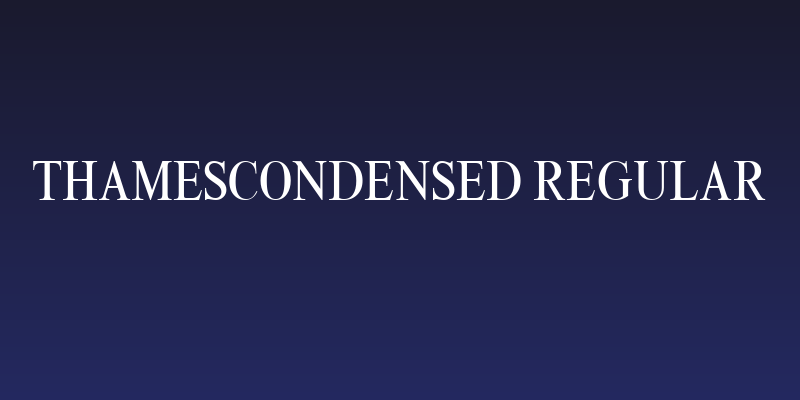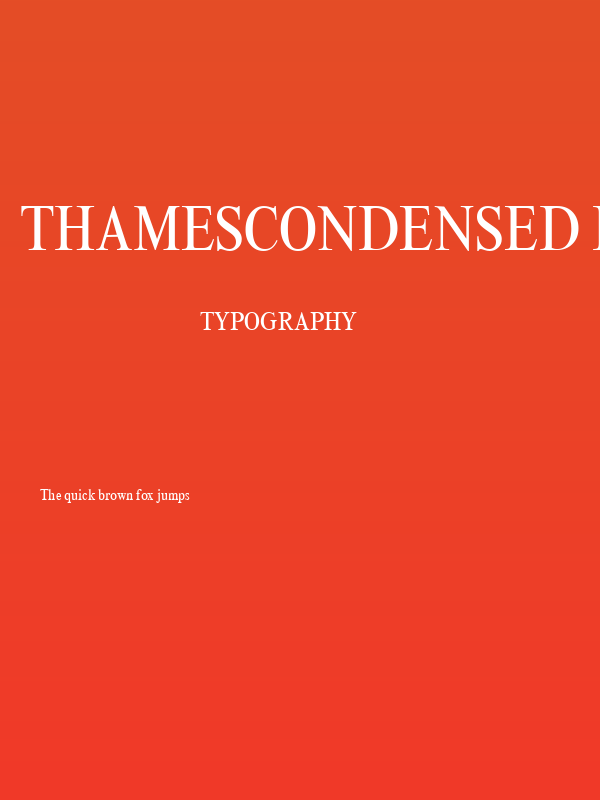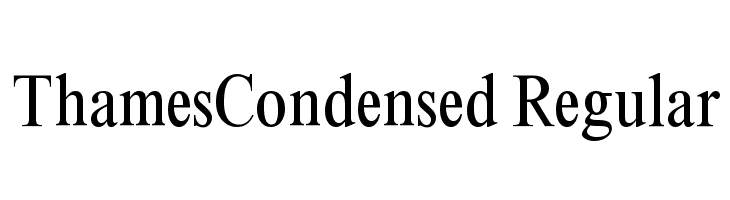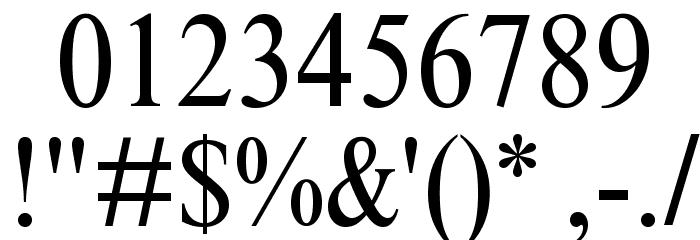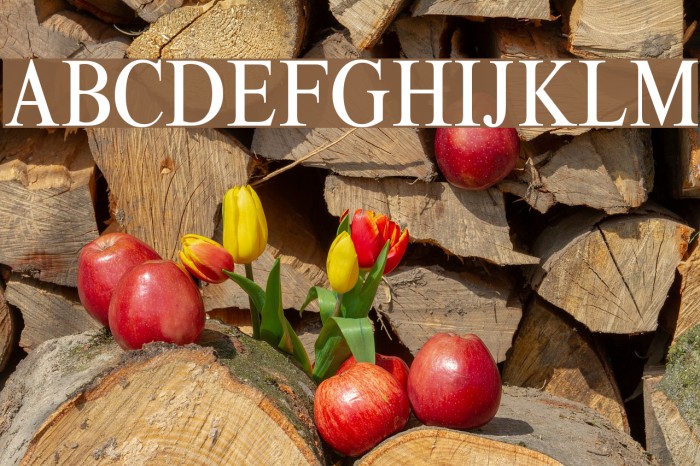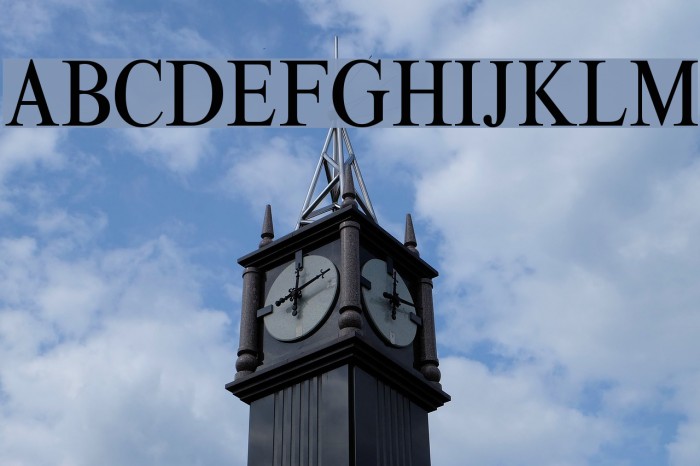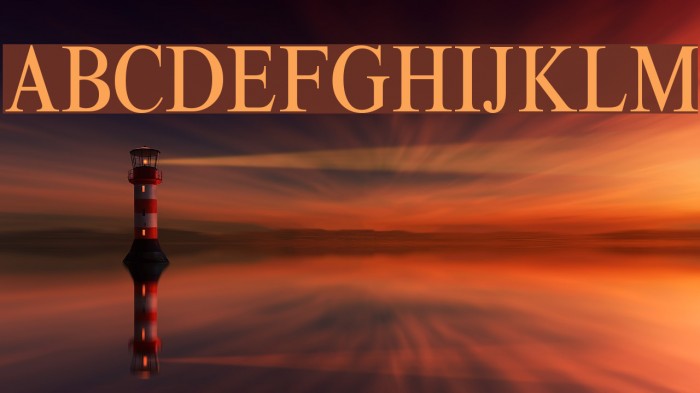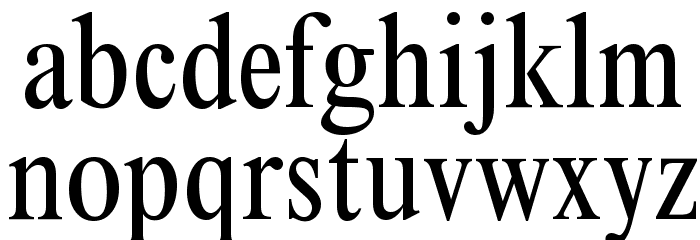
ThamesCondensed Regular Font
ThamesCondensed Regular Description
This typeface features a classic serif style with a condensed width, offering an elegant and sophisticated appearance. The uppercase letters are tall and commanding, while the lowercase letters maintain a balanced and readable form. The numerals are clear and distinct, making them suitable for various applications. The special characters are well-integrated, ensuring consistency across all glyphs. The overall design is timeless, making it versatile for both traditional and modern projects. The strokes are moderately thick, providing a medium contrast that enhances readability without sacrificing style.
| Width | Condensed |
| Overall Style | Classic |
| Use Case | Headlines, Body text, Logos |
| Proposed Projects | Ideal for editorial design, book covers, formal invitations, and branding projects that require a touch of sophistication. |